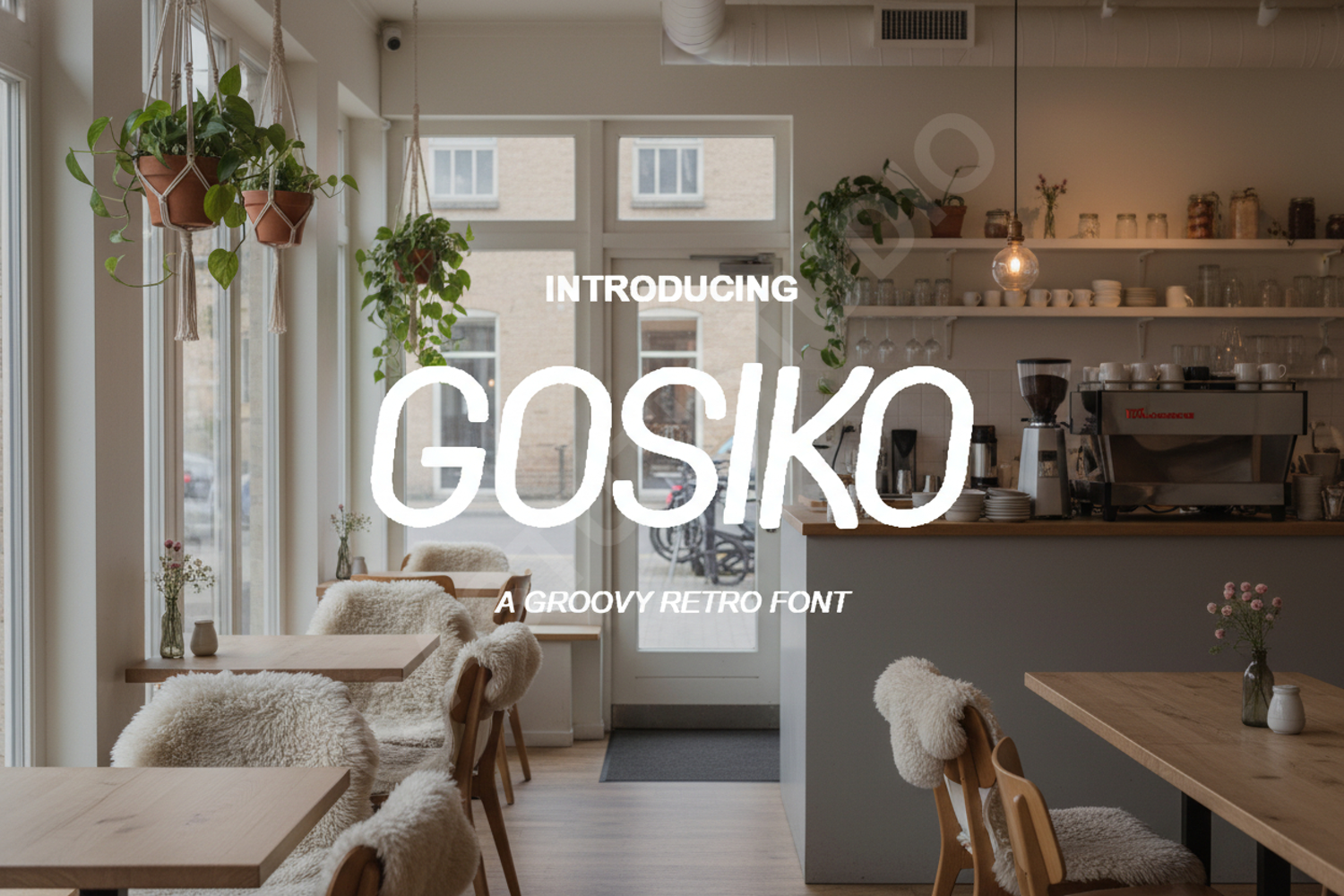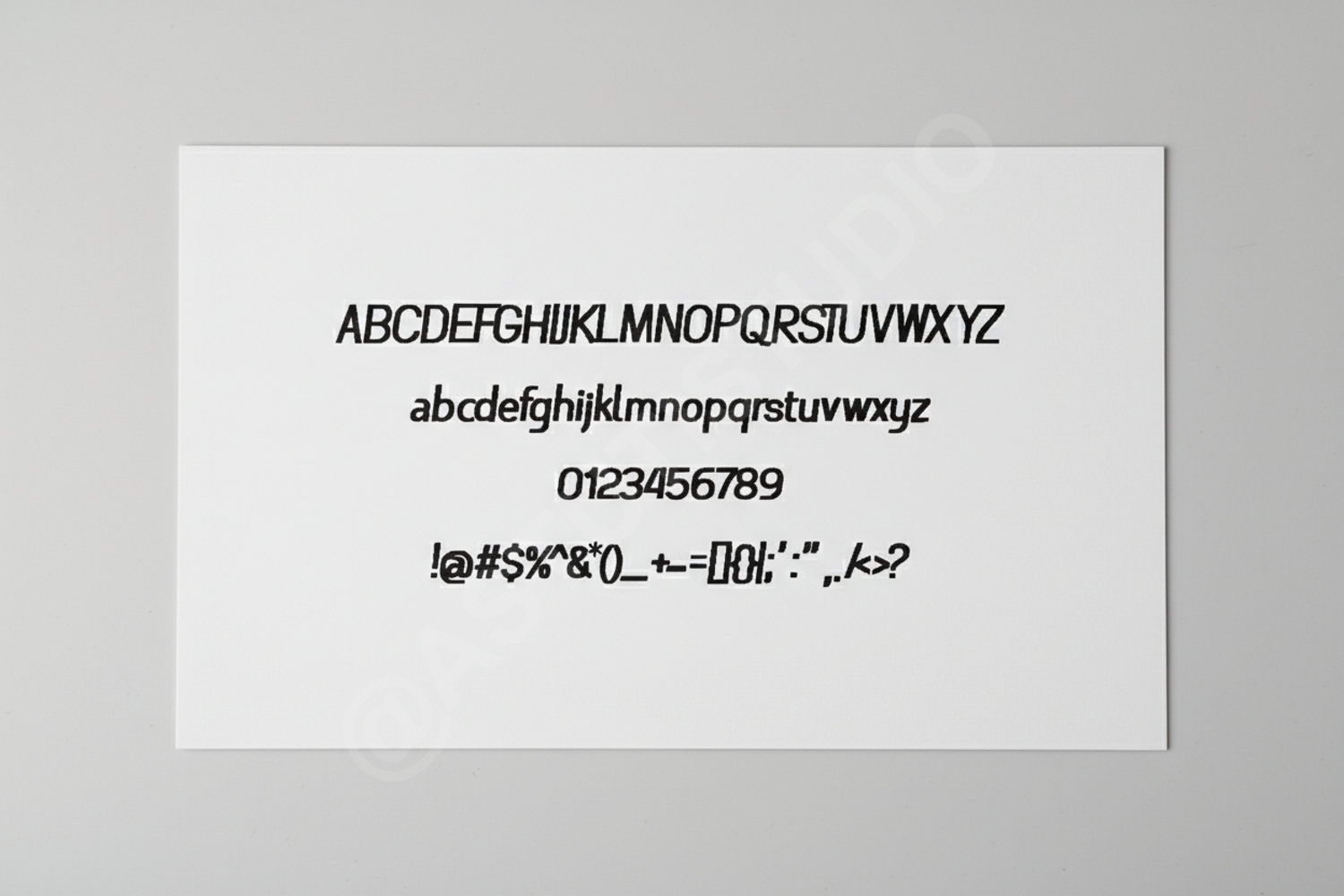
Gosiko - Modern Sophisticated Serif Typeface
Gosiko
Elevate your creative projects with Gosiko, a premium serif font that embodies modern elegance and timeless sophistication. Crafted with meticulous attention to detail, Gosiko offers a clean yet characterful aesthetic that ensures your designs stand out with professional polish. Whether you are working on a high-end luxury brand or a minimalist editorial layout, this font provides the versatility and style required for top-tier design work.
- Luxury Branding and Identity Systems
- Elegant Wedding Invitations and Stationery
- High-End Magazine and Editorial Layouts
- Professional Logo Design
- Sophisticated Social Media Content
- Premium Product Packaging and Labels